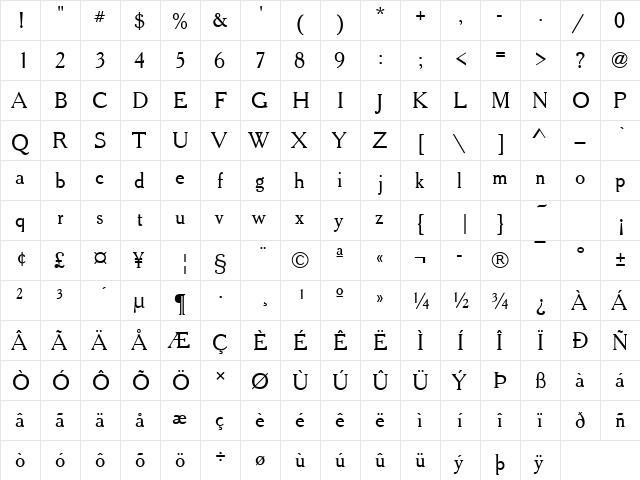
Cheltenham Becker Old Style Regular
Design Context for Cheltenham Becker Old Style Typeface
Cheltenham Becker Old Style takes a measured approach to typography — its balanced proportions and neutral character make it a reliable workhorse for both digital and print work.